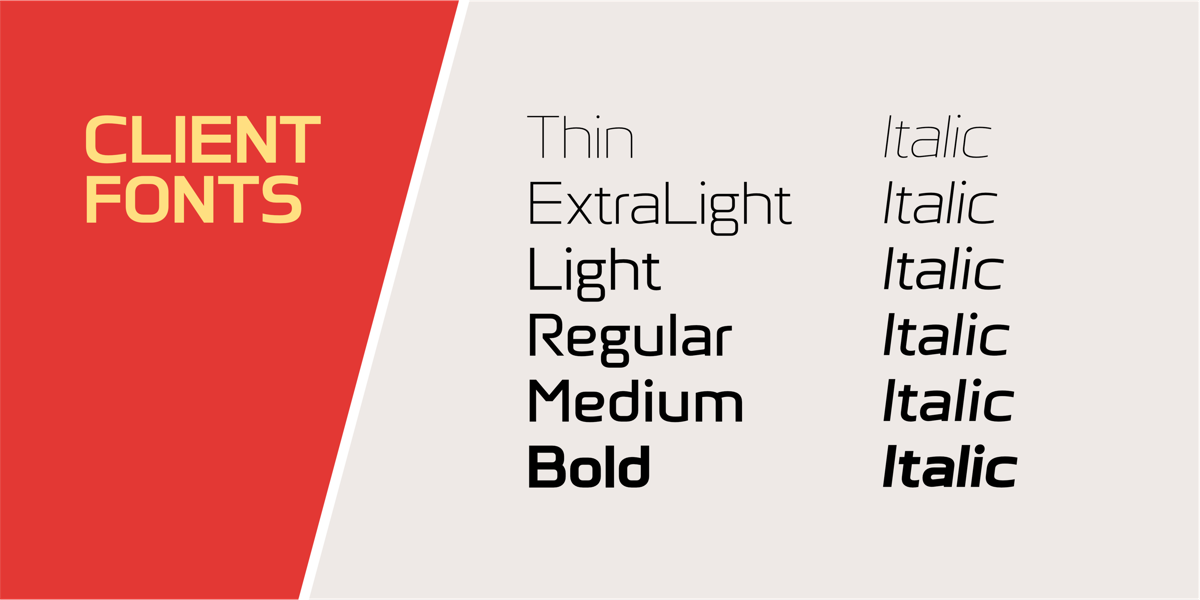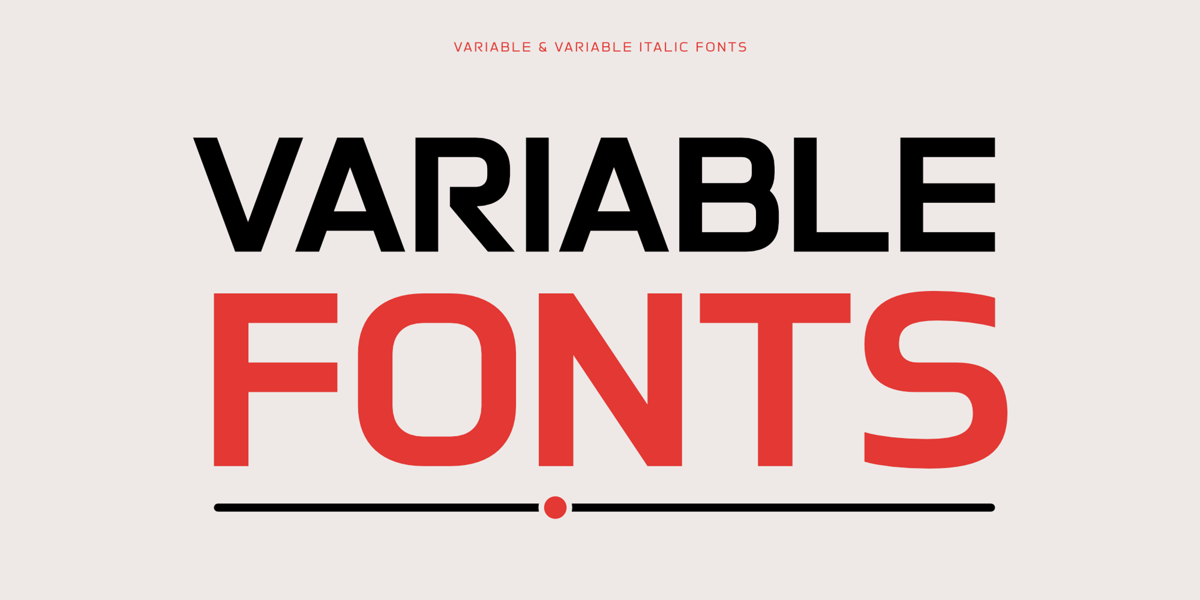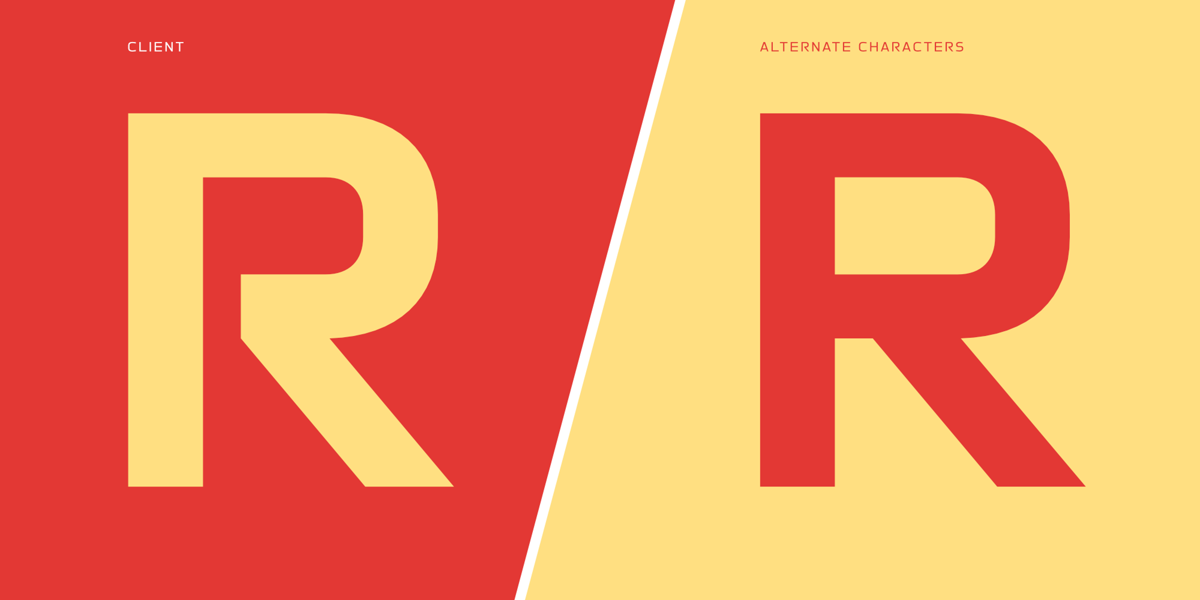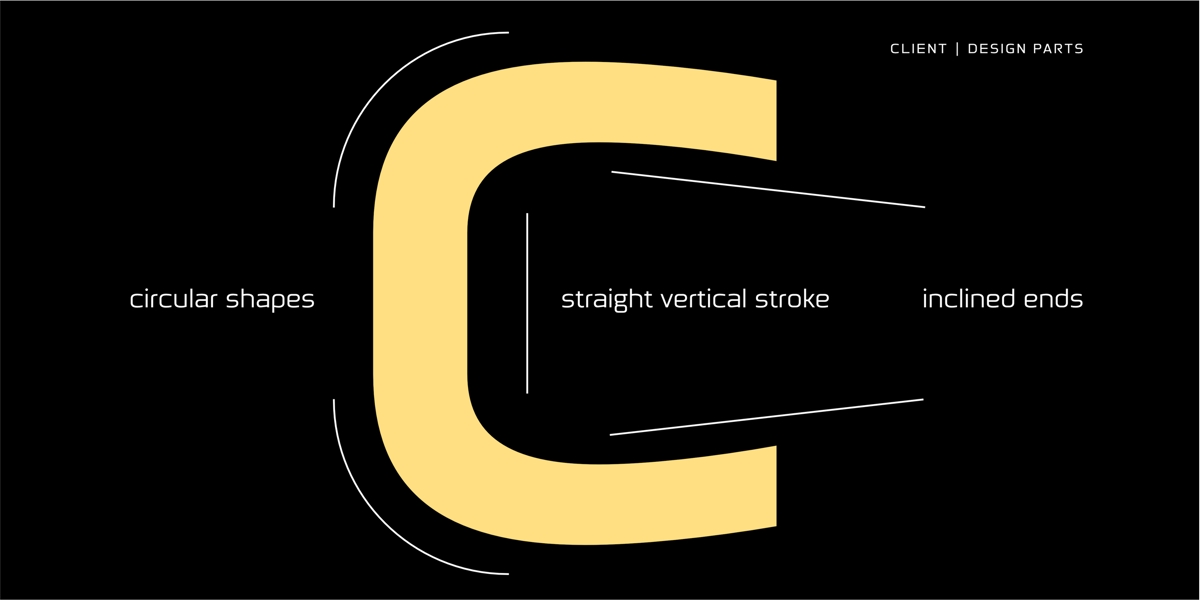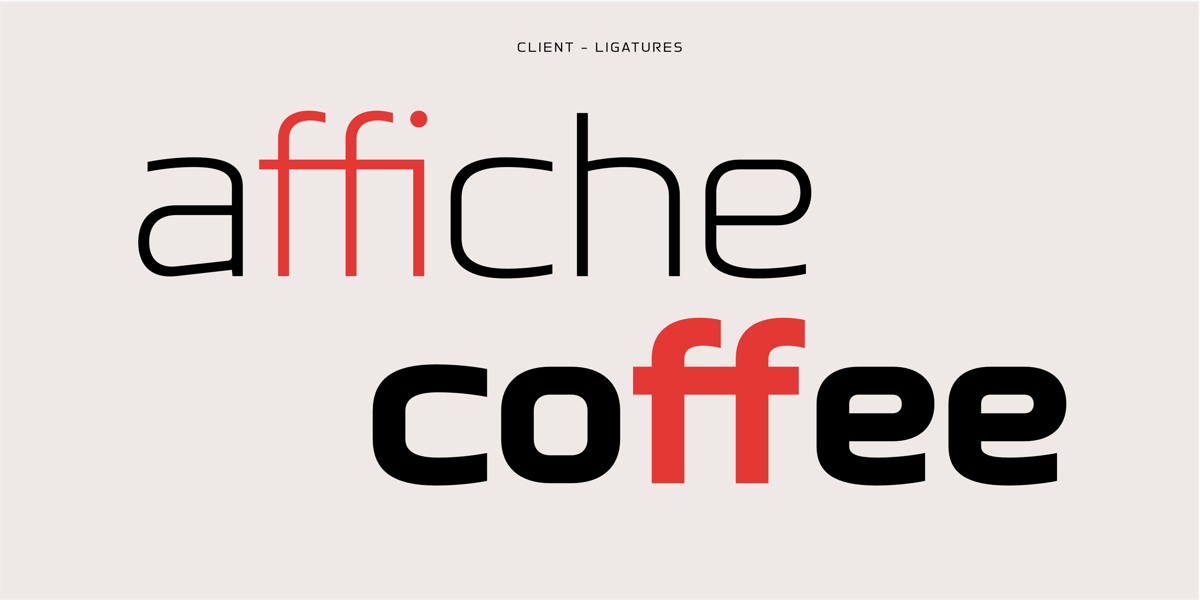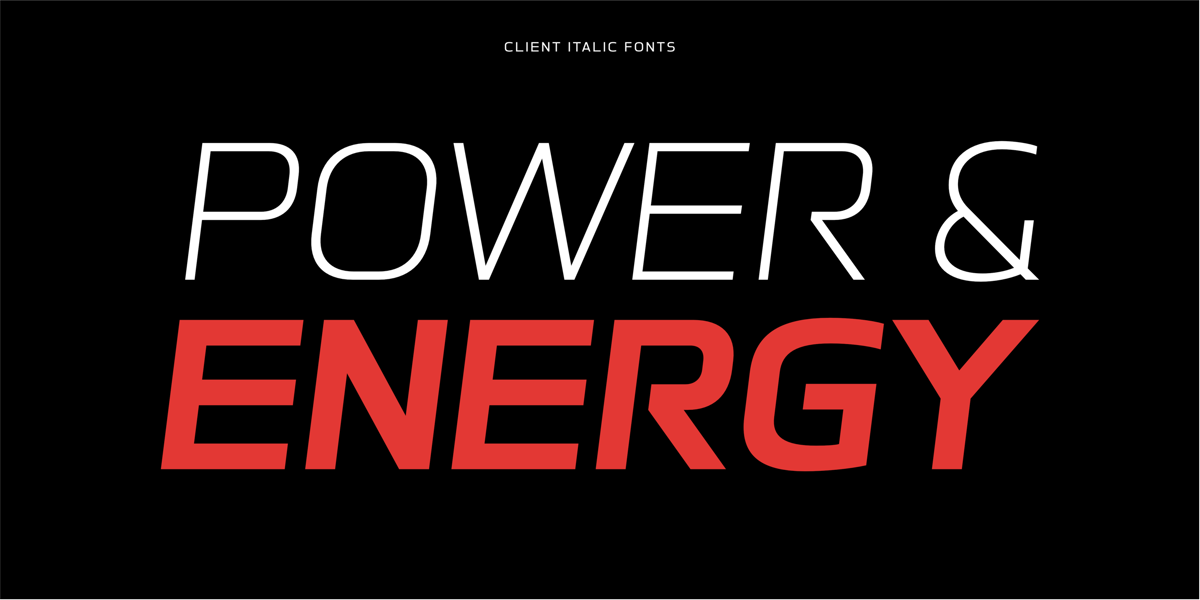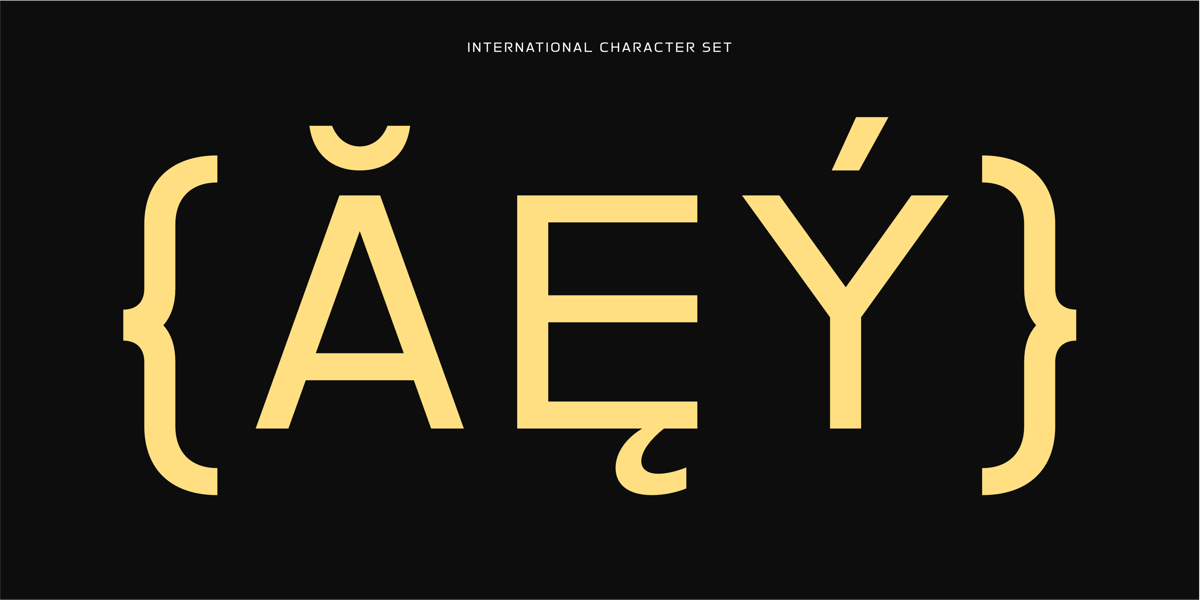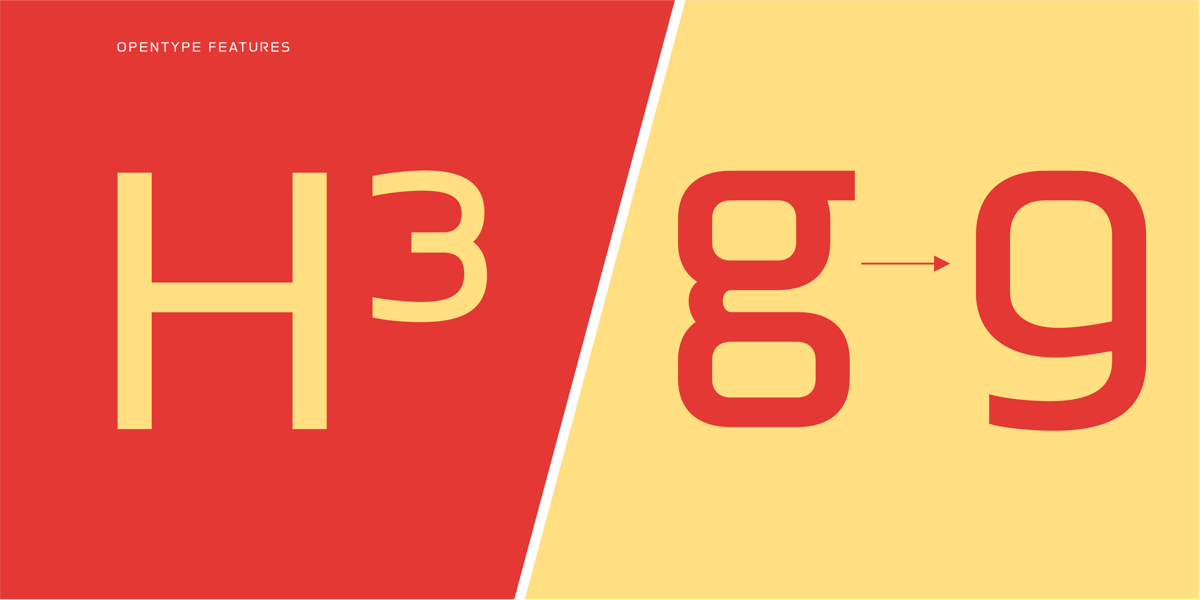
Client–Contemporary Font Family
Designed for branding, publishing and digital design
The Client font family is a modern, square sans-serif typeface that includes a total of 12 fonts and 2 variable fonts. It is characterized by its unique personality and contemporary design language, making it a distinctive choice for a wide range of design applications. The letterforms of the Client font feature a modern and dynamic style, providing a high level of recognition and visual appeal.
The Client font family is highly valued in graphic design, corporate design, communication design, branding, packaging, publishing, and web design. Its versatility and wide range of styles make it especially suitable for larger projects, including corporate branding and various design applications.
In addition to its visual qualities, the Client font family offers a variety of OpenType features, an extensive international character set, and stylistic alternates. These features give designers the flexibility and tools required to create visually engaging and effective designs.
Client
Foundry: Sergej Lebedev
Designer: Sergej Lebedev
Weights:
Thin, ExtraLight, Light, Regular, Medium, Bold
Styles:
Roman and Italic
Total Fonts:
12 static fonts + 2 variable fonts